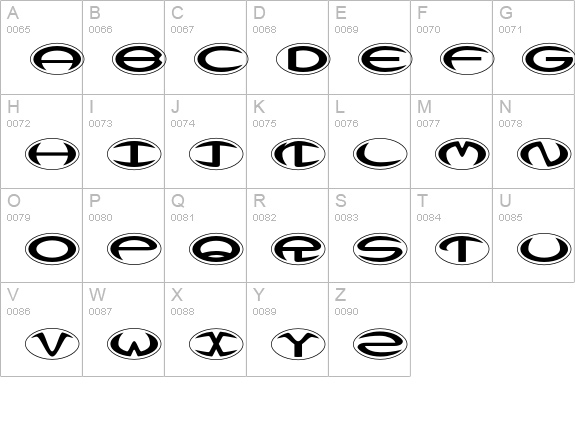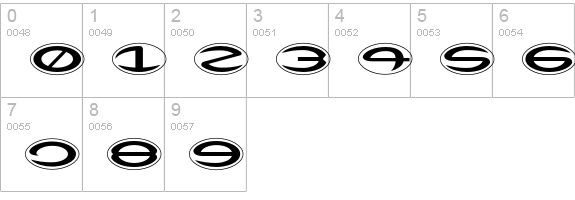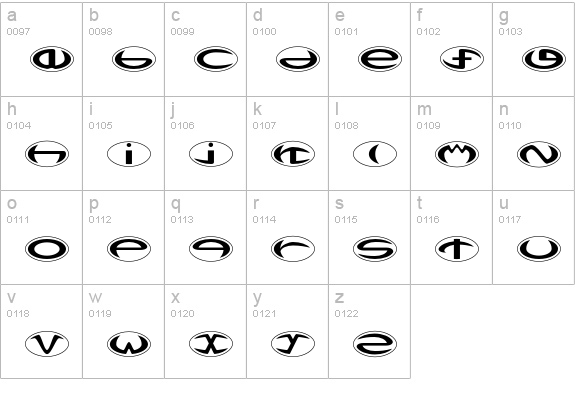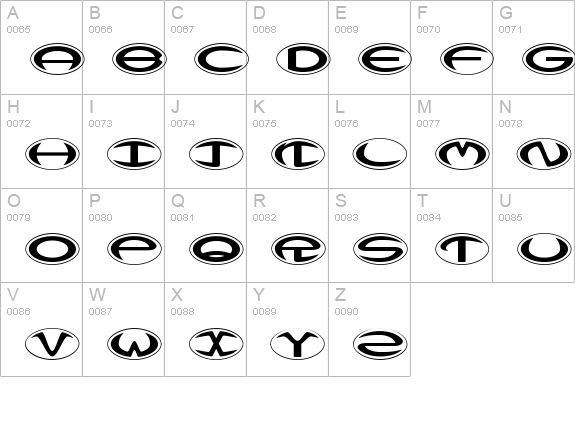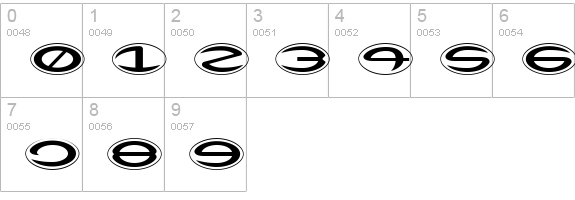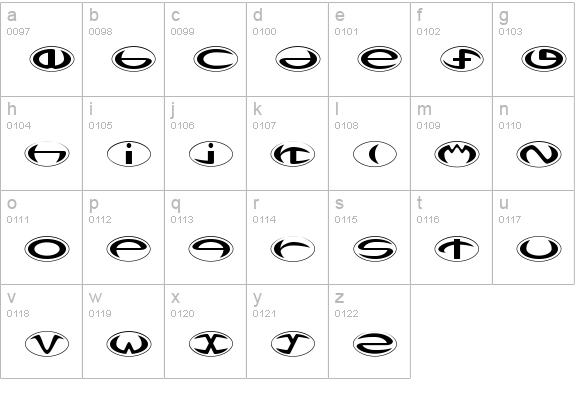
Dactylo-SemiBold Font Details
Dactylo-SemiBold is a sub-bold, structured variant in the Dactylo typeface family \xE2\x80\x94 well suited to sub-headlines and emphasised passages.
Introducing Dactylo-SemiBold font, a captivating typeface that exudes confidence and sophistication. This bold and striking font is the perfect choice for those seeking a modern yet timeless design element. With its distinct and commanding presence, Dactylo-SemiBold font effortlessly demands attention in any creative project. Whether it's for print materials, digital designs, or branding purposes, this font delivers a powerful impact that leaves a lasting impression. The thick and sturdy letterforms of Dactylo-SemiBold font embody strength and stability, while its refined curves and subtle details add a touch of elegance and finesse. This harmonious balance between boldness and subtlety makes it an ideal choice for headlines, titles, and other prominent text elements. But what truly sets Dactylo-SemiBold font apart is its versatility and accessibility. It is a free font, available for download at FontsMarket.com. This means that anyone can easily access and utilize this remarkable typeface for their creative endeavors, without any limitations or hurdles. Whether you're a professional designer, a student, or an enthusiast exploring the world of typography, Dactylo-SemiBold font offers you the freedom to express your vision and bring your ideas to life. Its extensive character set includes all the essential glyphs, punctuation marks, and special characters, ensuring that you have everything you need to create visually stunning and impactful designs. So, seize the opportunity to enhance your projects with the captivating beauty of Dactylo-SemiBold font. Download it for free at FontsMarket.com and experience the boundless possibilities that this remarkable typeface brings to your creative journey.